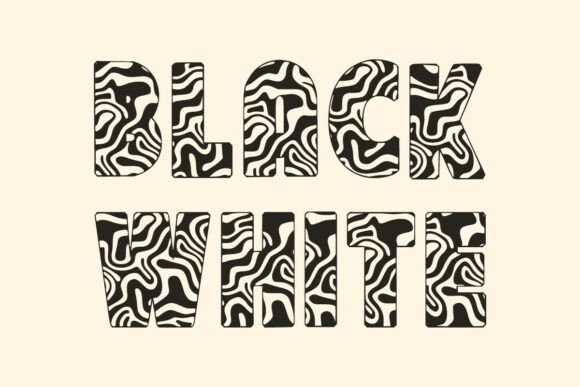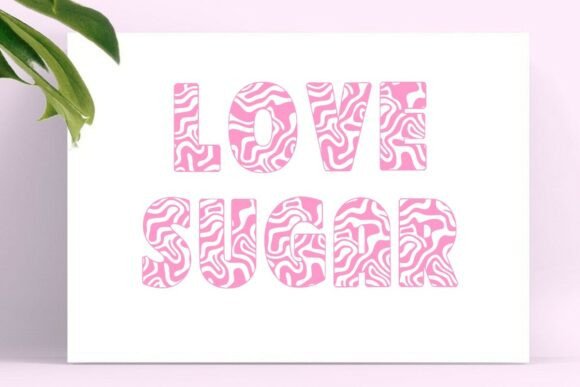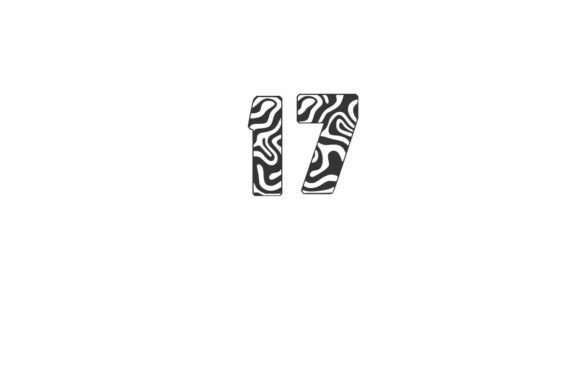
Introduction to Milky Zoo Font
Do you remember the moment when a spark of creativity hits you, and you just can’t wait to bring your idea to life? It’s that feeling of excitement and anticipation that drives us to create something truly unique and special. As designers, we’re always on the lookout for the perfect design resource to elevate our creative project and make it stand out from the crowd.
That’s where the Milky Zoo Font comes in – a high-quality, free download that’s about to become your new best friend. With its refined milk black and white texture, this display font is the perfect addition to any design project that needs a touch of elegance and sophistication. And the best part? It features a transparent background, making it incredibly versatile and easy to work with.
Whether you’re a seasoned designer or just starting out, the Milky Zoo Font is an invaluable resource that’s sure to take your creative ideas to the next level. So why settle for a generic font when you can add a touch of magic to your design with the Milky Zoo Font?
Key Features of Milky Zoo Font
- High-quality, hand-drawn design perfect for creative projects and artistic endeavors
- Comes with a transparent background, making it easy to integrate into various design elements
- Features a unique, whimsical style that adds a touch of personality to any design
- Perfect for use in graphic design, digital art, and other creative pursuits where a distinctive font is desired
Honest Review: Milky Zoo Font
I recently had the chance to work with the Milky Zoo Font, and I must say it’s a great addition to any creative project. This free download has really impressed me with its high quality design.
What works well: ✨ The Milky Zoo Font has a unique, playful feel that’s perfect for children’s books, educational materials, or any design project that needs a touch of whimsy. The font’s transparent background makes it easy to layer and combine with other design elements.
What I like most about the Milky Zoo Font is its versatility. You can use it for headings, titles, or even body text, and it still looks great. The font’s simplicity also makes it easy to read, even at smaller sizes.
However, there are some limitations to consider: ⚠️ The Milky Zoo Font may not be the best choice for professional or formal projects, as its playful feel may not be suitable for more serious designs. Additionally, the font’s transparency can sometimes make it difficult to see the text against certain backgrounds.
Overall, I’m really impressed with the Milky Zoo Font. It’s a great design resource that’s perfect for creative projects where a playful, high-quality font is needed. Just be aware of its limitations, and you’ll be all set to create some amazing designs.
- High quality design
- Unique, playful feel
- Perfect for children’s books, educational materials, and creative projects
The Milky Zoo Font is ideal for various creative projects, such as digital art, graphic design, and typography-based art. It’s also a great design resource for logos, branding, and marketing materials.